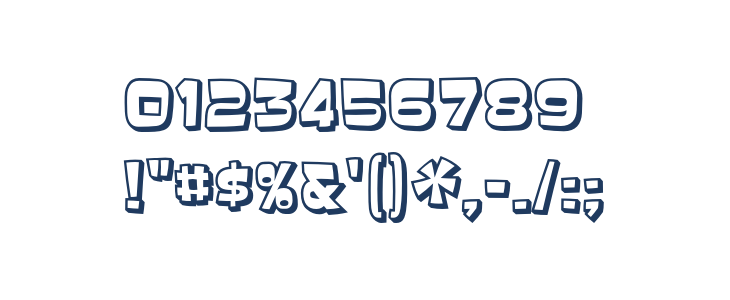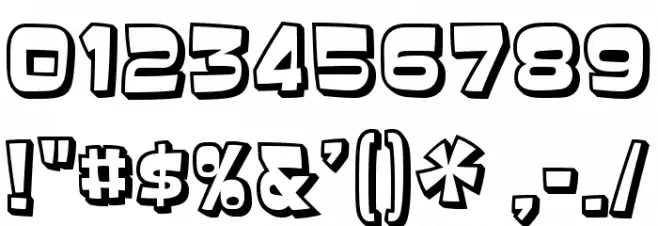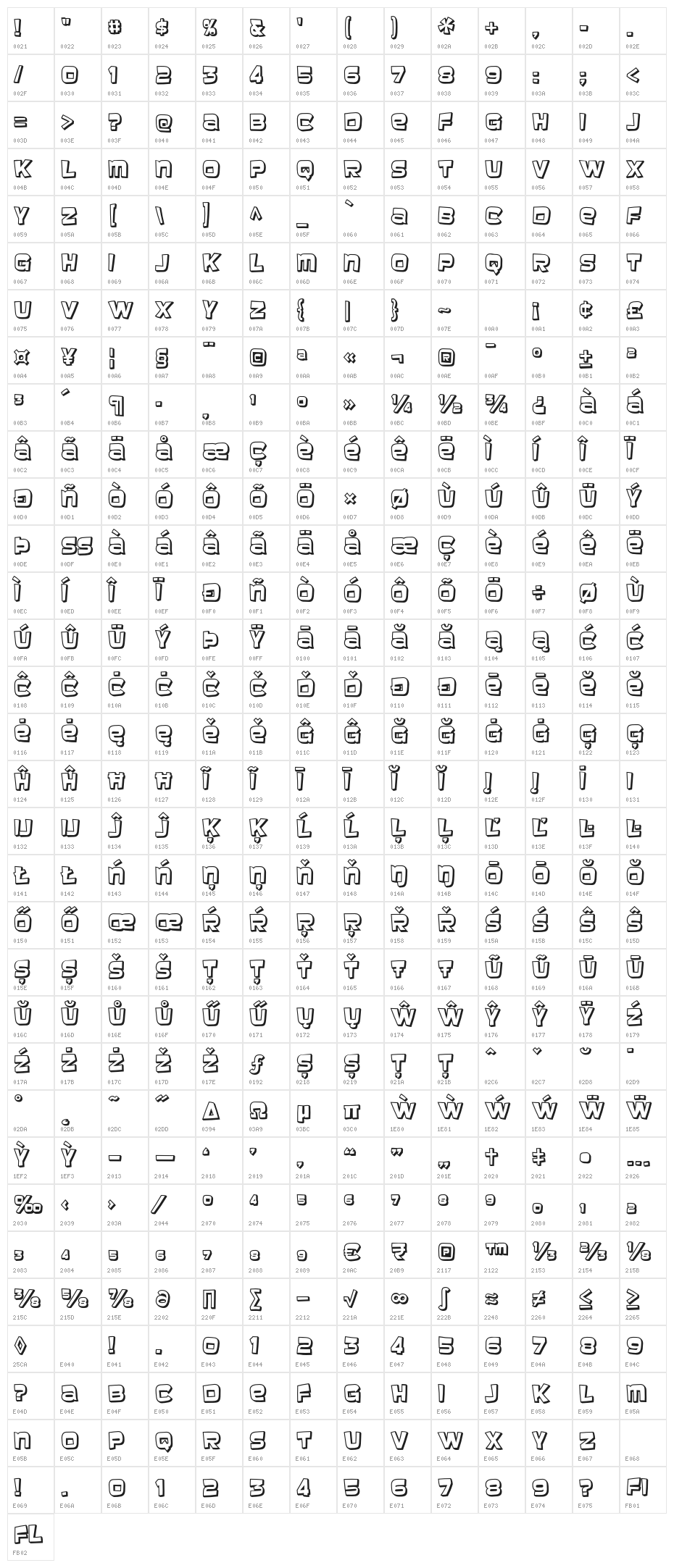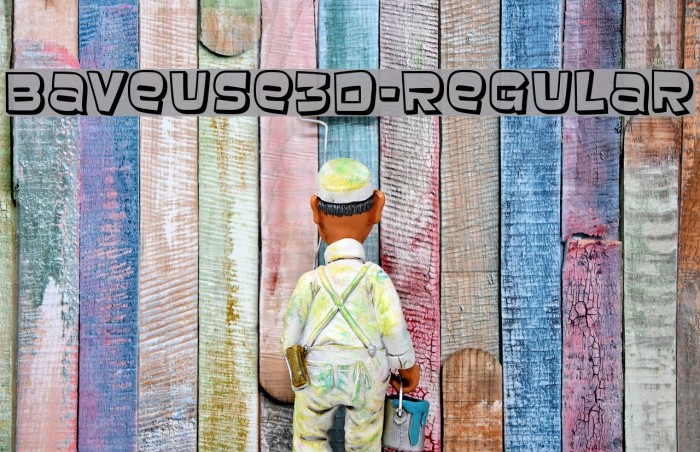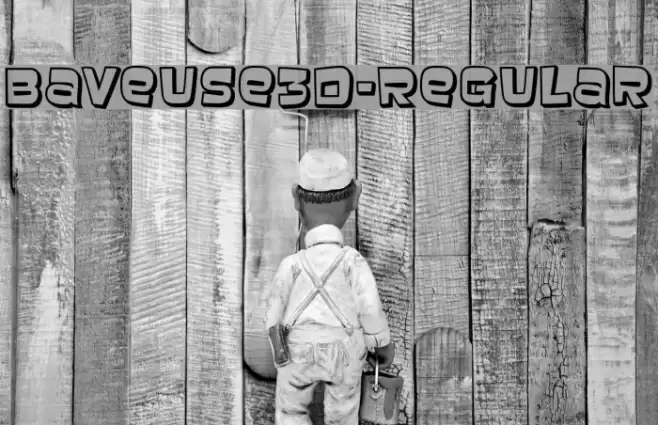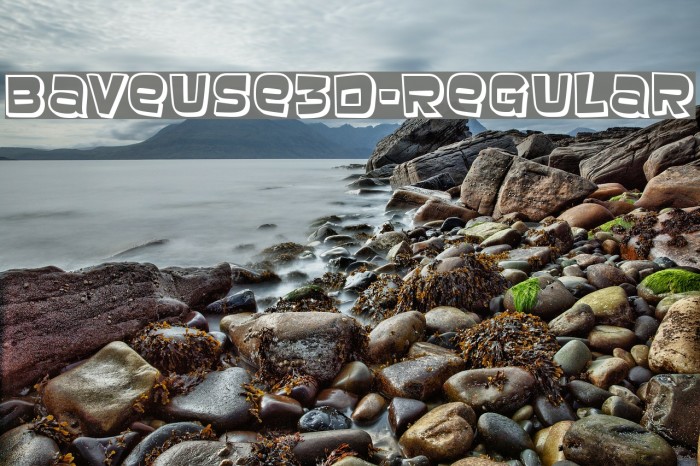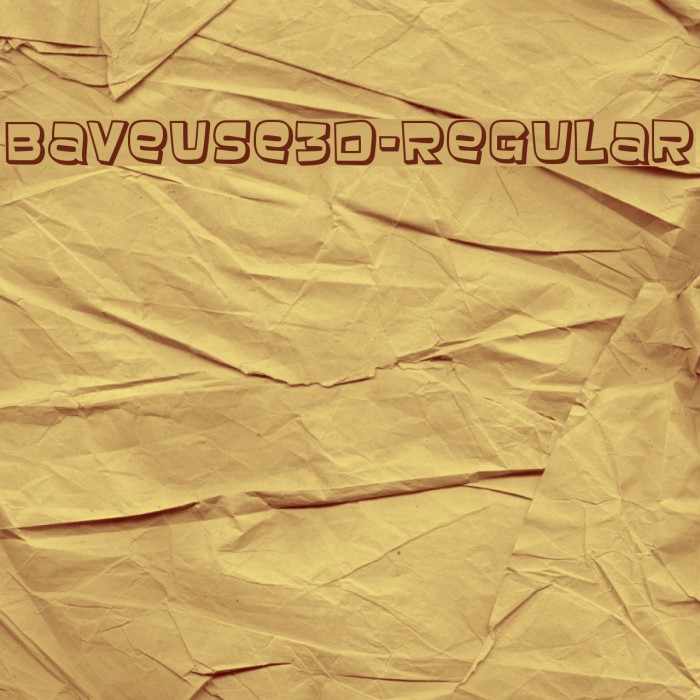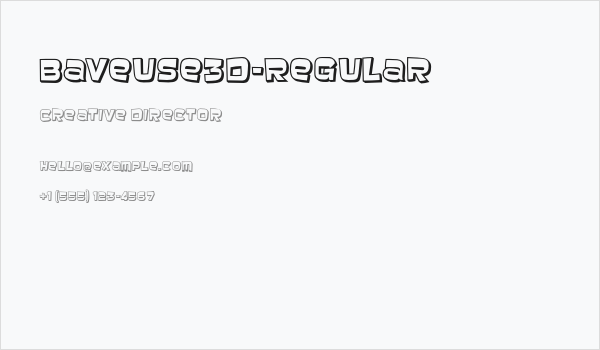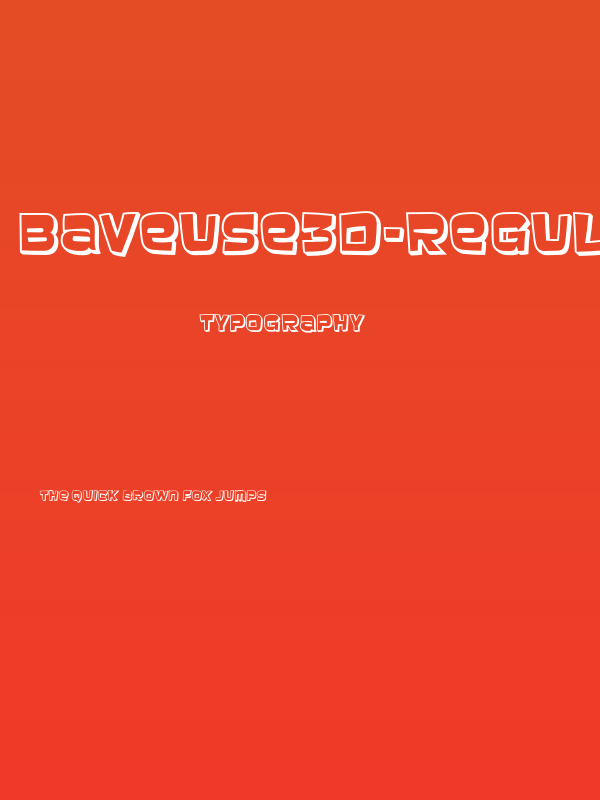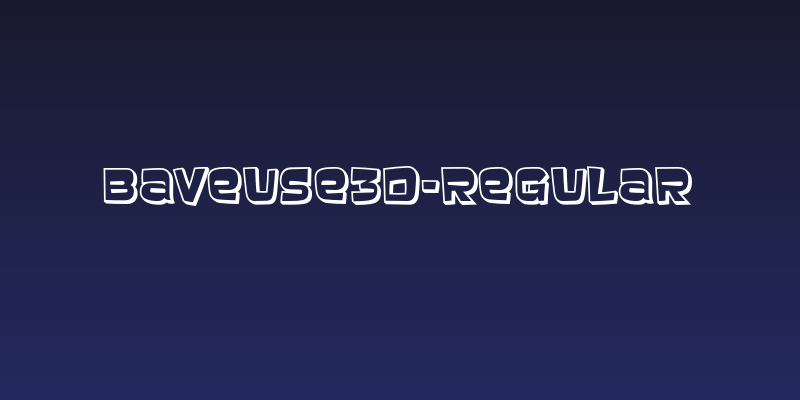
Baveuse3D-Regular Font
Baveuse3D-Regular Description
This playful and bold font features a three-dimensional effect that gives each character a sense of depth and volume. The letters are outlined with a thick black border, creating a striking contrast against the white interior. The style is reminiscent of comic book lettering, with exaggerated curves and angles that add a sense of movement and energy. The font maintains a consistent weight throughout, ensuring readability while still delivering a fun and dynamic appearance. Its unique style makes it suitable for projects that require a touch of whimsy and creativity.
| Overall Style | Playful, Comic |
| Proposed Projects | Ideal for comic books, children's book covers, playful branding, and eye-catching posters. |